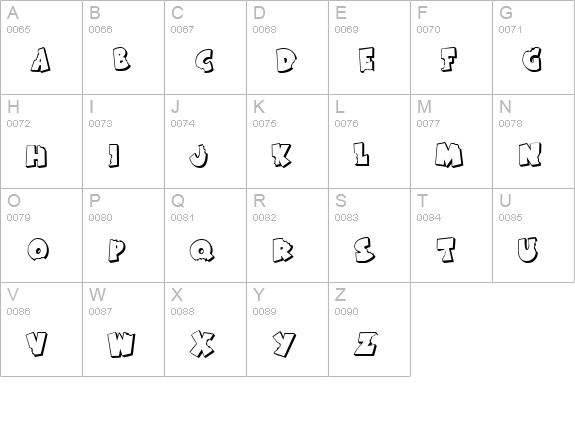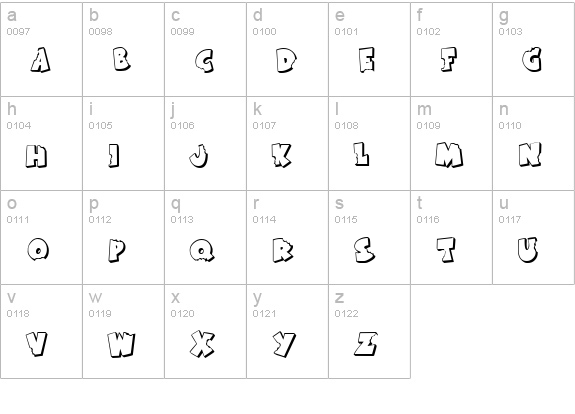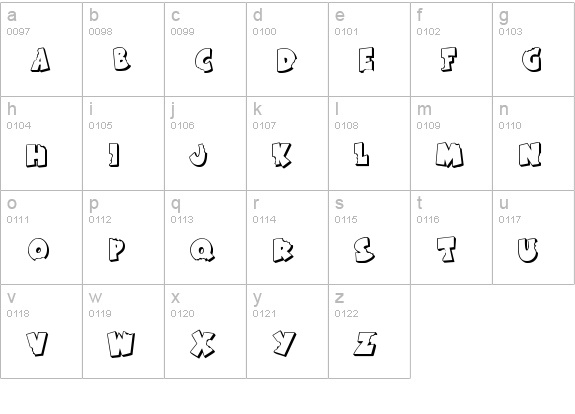
KR Bite Me Font Details
Introducing the KR Bite Me font - a bold and expressive typeface that exudes personality and charm. With its sharp edges and playful curves, this font is perfect for making a statement in your design projects. Whether you're creating eye-catching posters, attention-grabbing headlines, or unique logos, KR Bite Me is sure to leave a lasting impression. What's even better is that this captivating font is completely free to download at FontsMarket.com. Yes, you read that right - you can add this stylish typeface to your collection without spending a dime. So why wait? Give your designs a fresh and dynamic look with the KR Bite Me font today!